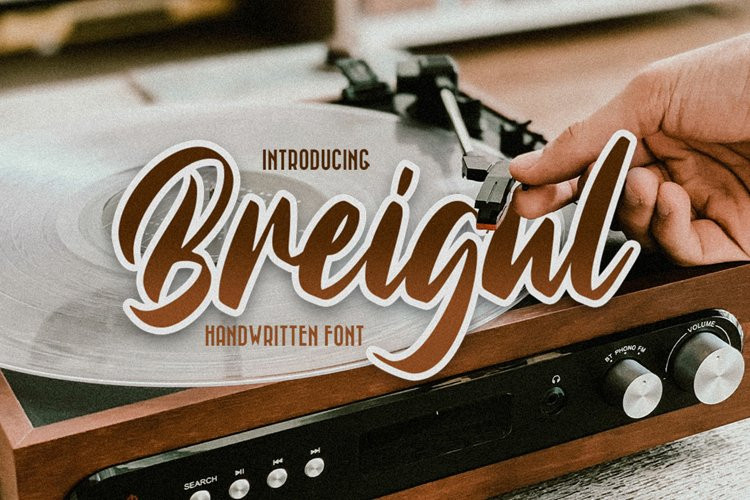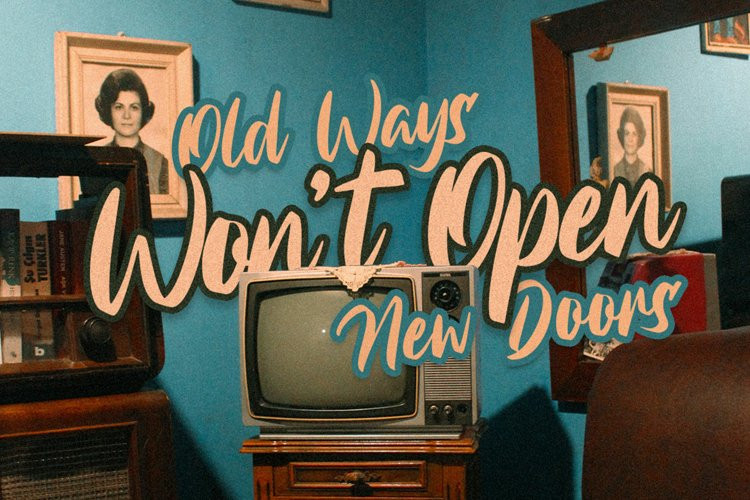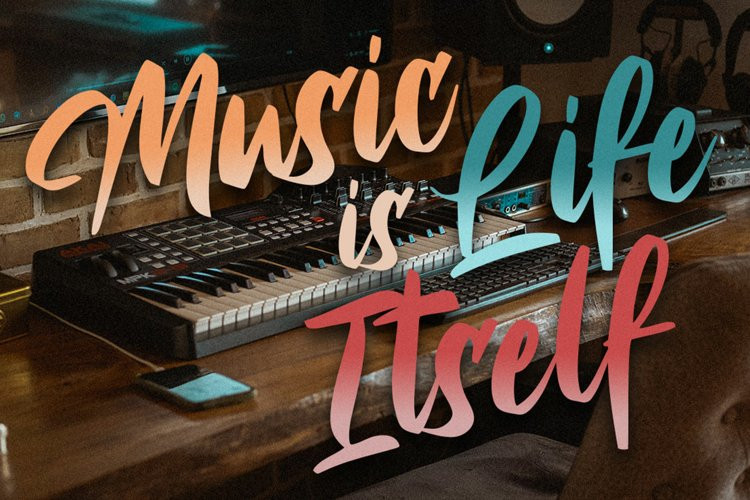
Breigul Font
Breigul FontBreigul a Strong script font. with a bit of ligatures and alternates. To give you an extra creative work. Breigul font support multilingual more than 100+ language. This font is good for logo design, Social media, Movie Titles, Books Titles, a short text even a long text letter and good for your secondary text font with sans or serif. Make a stunning work with Breigul font.